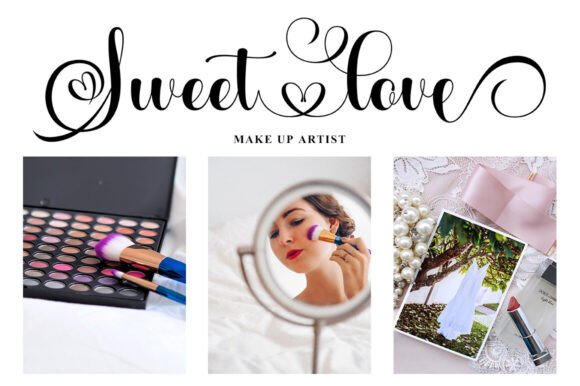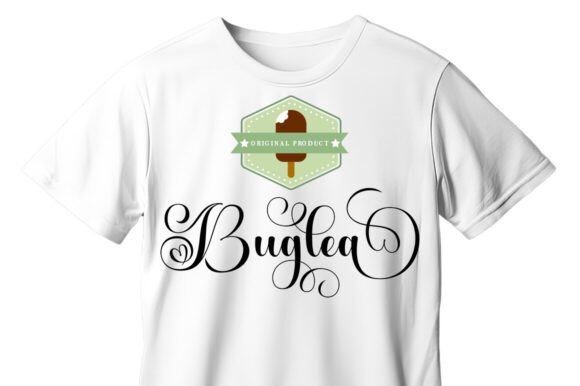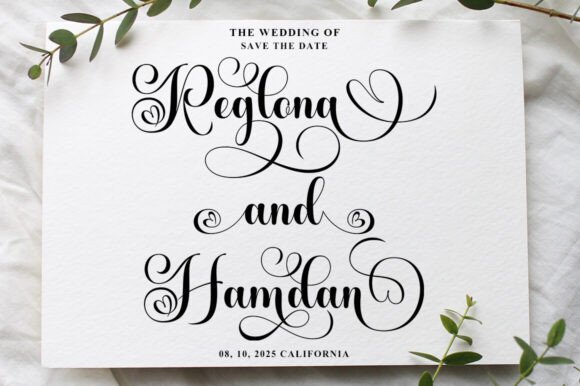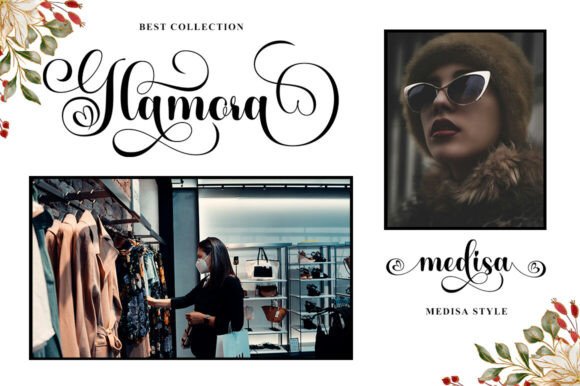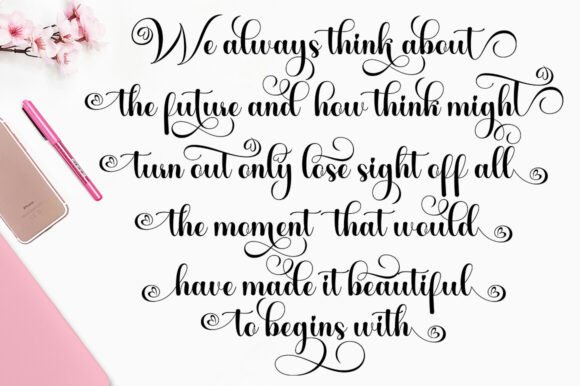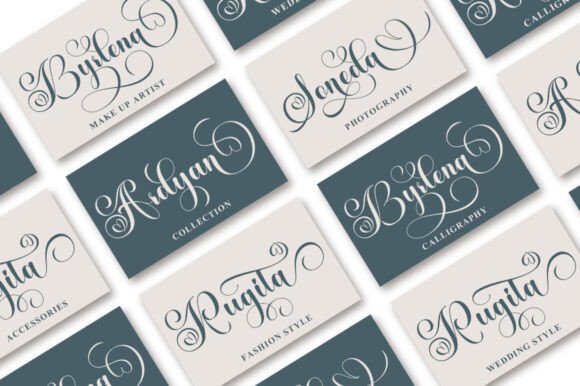
Introduction to Mayritsa Font
Mayritsa is an elegant and flowing handwritten font.
It features varied baselines, smooth lines, gorgeous glyphs, and stunning alternatives It maintains a classy calligraphic influence while feeling contemporary and fresh.